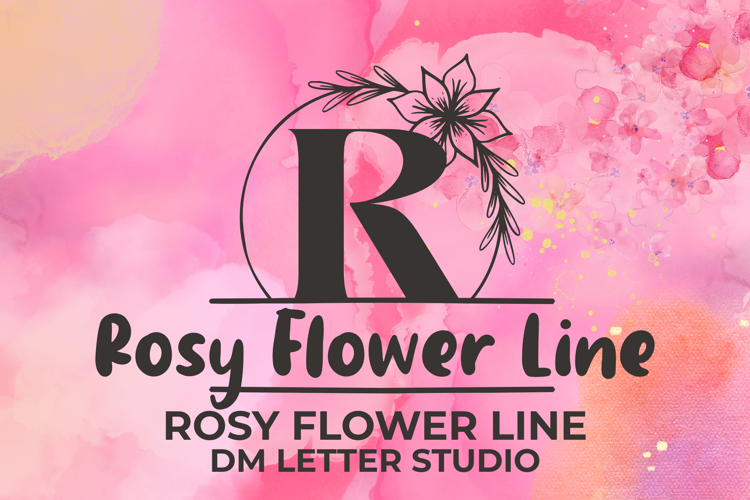
Rosy Flower Line Monogram - Elegant & Delicate Web Font
Rosy Flower Line Monogram
Rosy Flower Line Monogram – Elegant & Delicate Floral Line Monogram Font
Rosy Flower Line Monogram is a graceful and decorative monogram font that captures the timeless beauty of roses in refined line art. With its light, intricate floral detailing and clean letterforms, this font is ideal for romantic wedding designs, boutique logos, nature-themed packaging, and sophisticated branding projects that call for a soft yet polished floral touch.
• Rose-Inspired Line Art: Each monogram letter is adorned with hand-drawn rose motifs and delicate leaf accents.
• Clean & Elegant Letterforms: Perfect blend of structure and natural beauty for a classy appearance.
• Romantic & Versatile: Suits wedding designs, stationery, feminine branding, and floral-themed crafts.